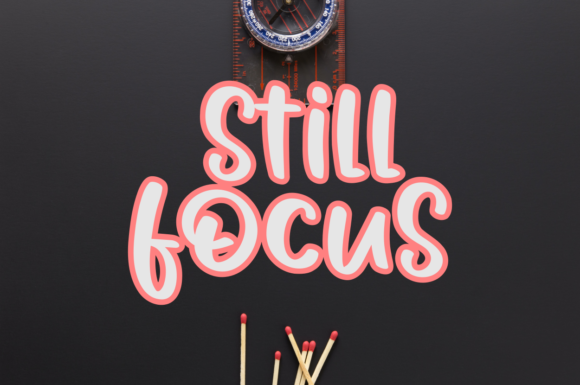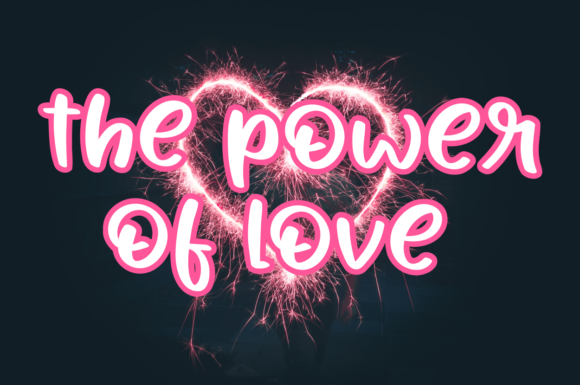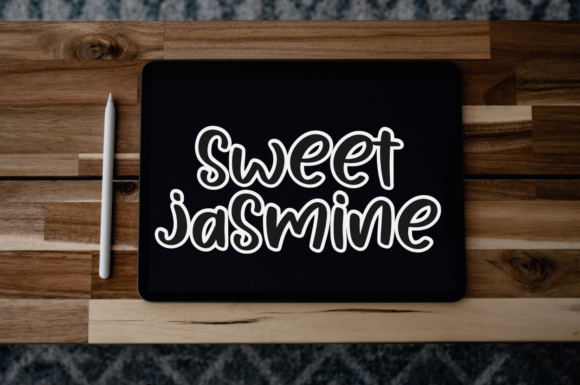
Introduction to Love Gisela Font Font
Fonts play a crucial role in design, and the Love Gisela Font font is a typeface that brings both character and versatility to any project. Whether you’re working on a branding project, a website, or a print design, the Love Gisela Font font offers a unique style that can elevate your work.
Love Gisela is a unique and interesting display font.
Incredibly versatile, this font will fit a wide pool of designs Fall in love with its incredibly stylish look and use it to create spectacular designs.
Key Features of Love Gisela Font Font
Why Choose Love Gisela Font Font?
The Love Gisela Font font is more than just a typeface – it’s a design tool that helps you communicate your message with style and clarity. Its unique character set and versatile design make it suitable for a wide range of applications, from elegant invitations to bold headlines.
With its carefully crafted letterforms and balanced proportions, the Love Gisela Font font ensures readability and visual appeal across all mediums.
What makes Love Gisela Font font special?
The Love Gisela Font font stands out with its unique design, exceptional readability, and versatility across various design applications.